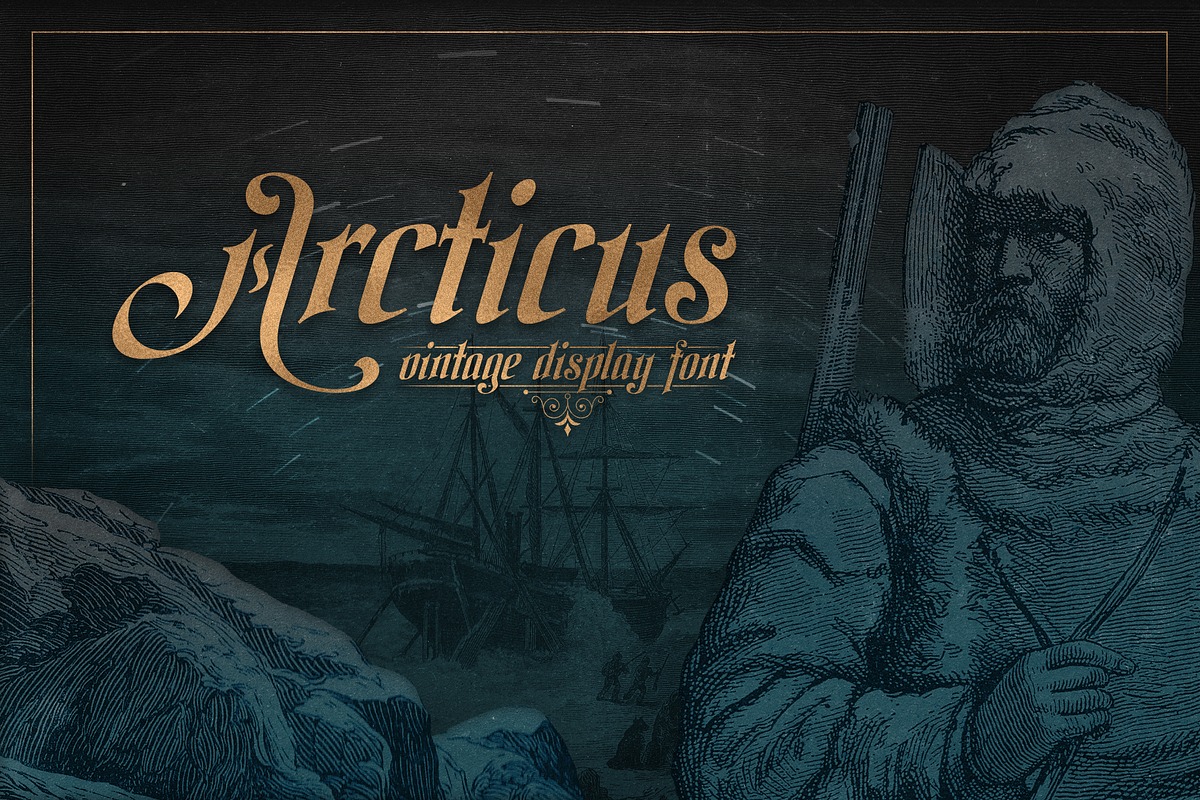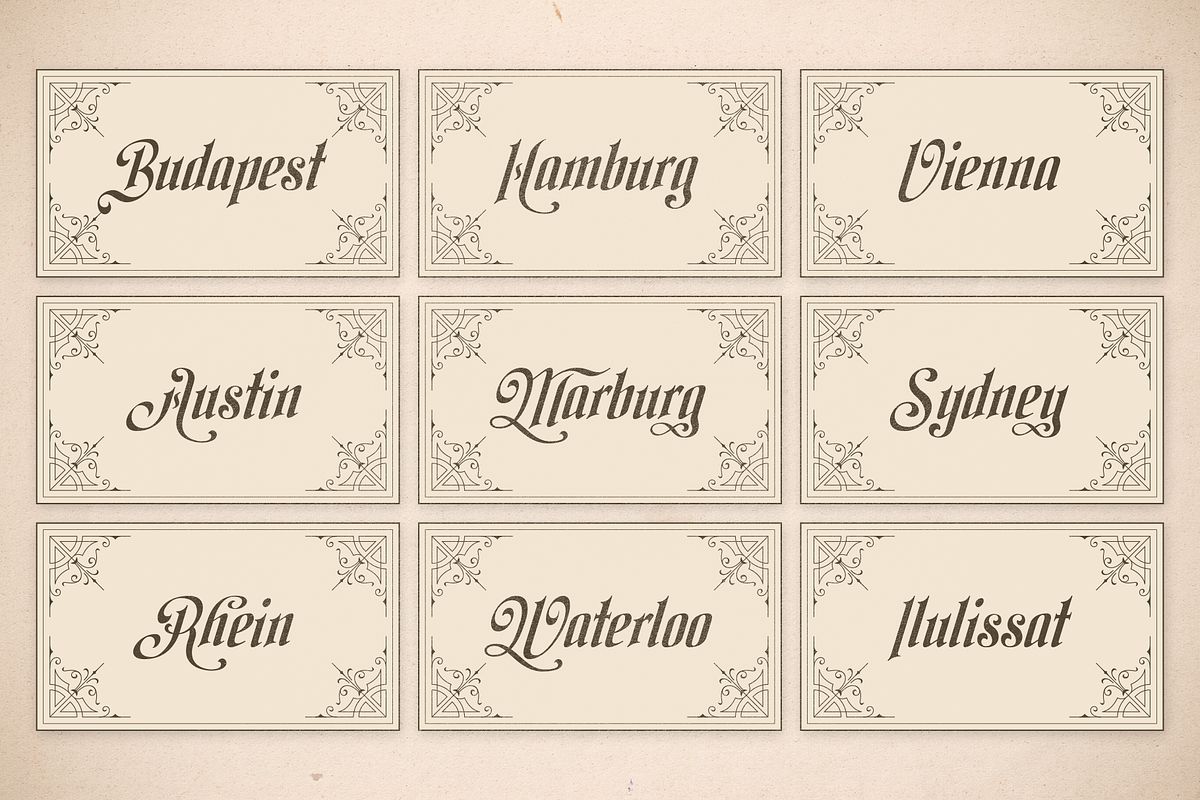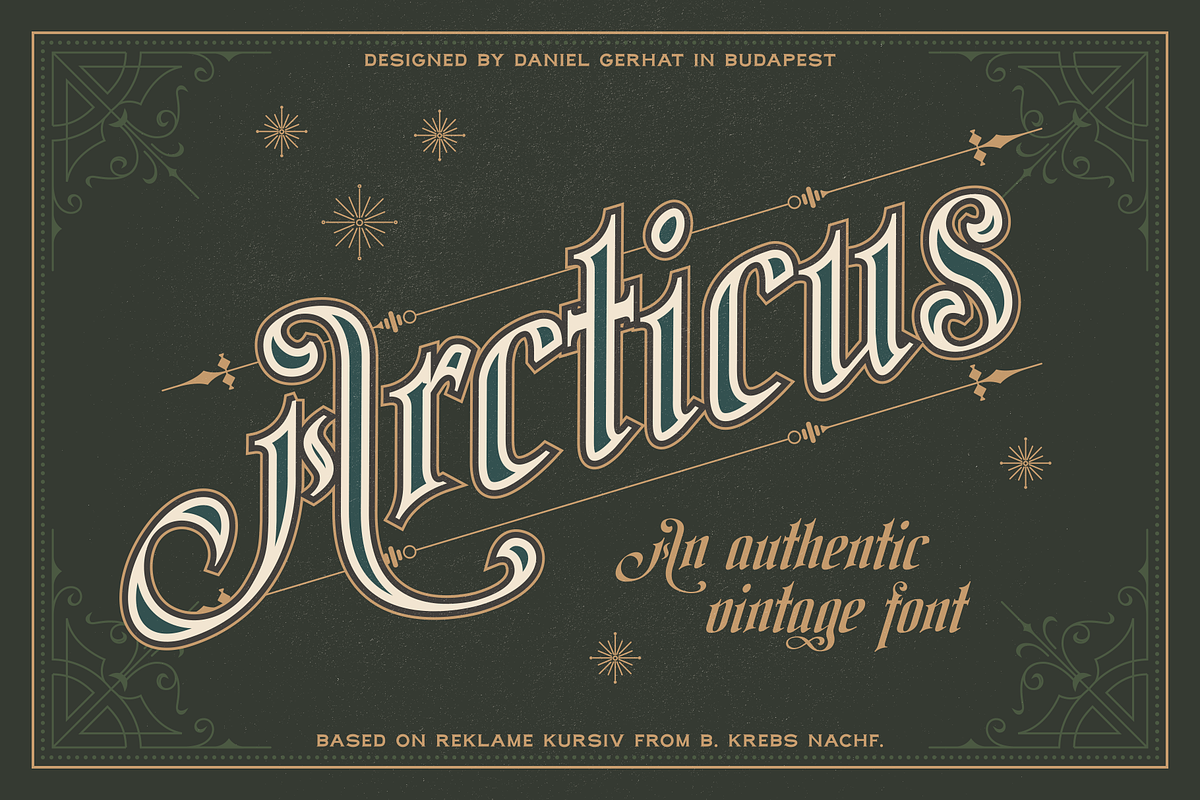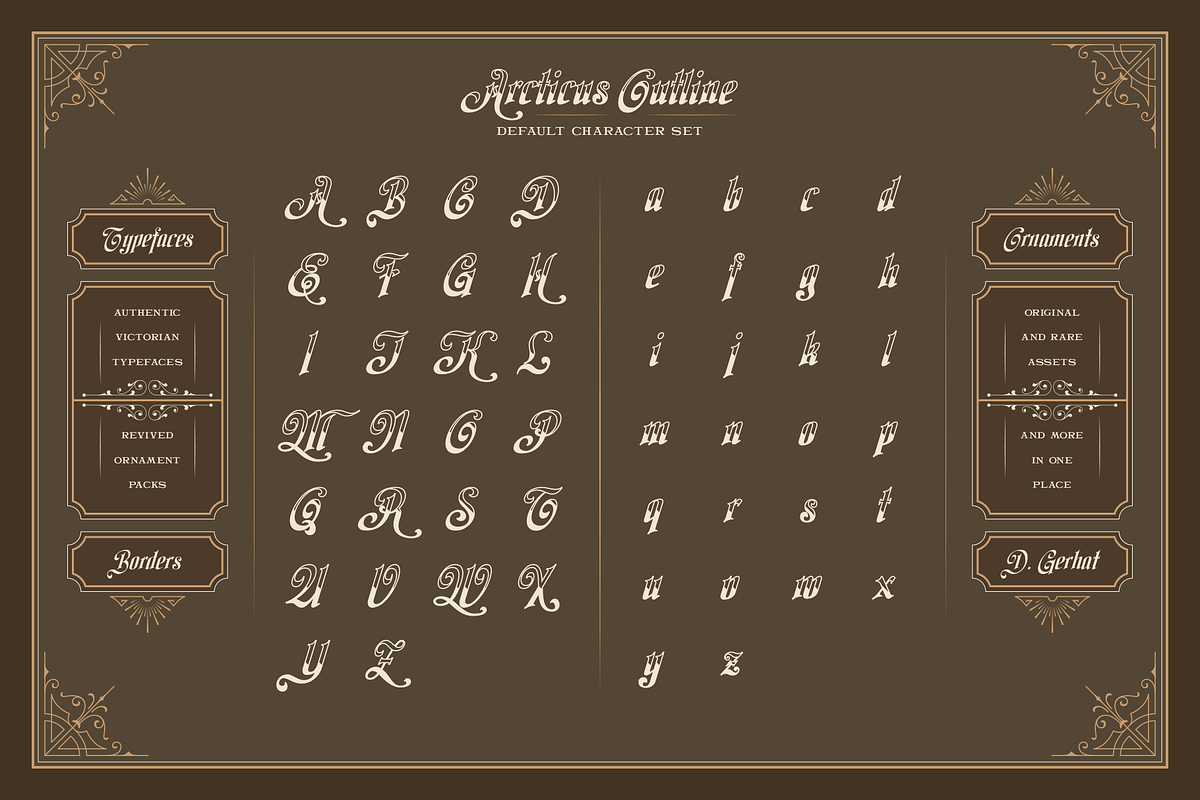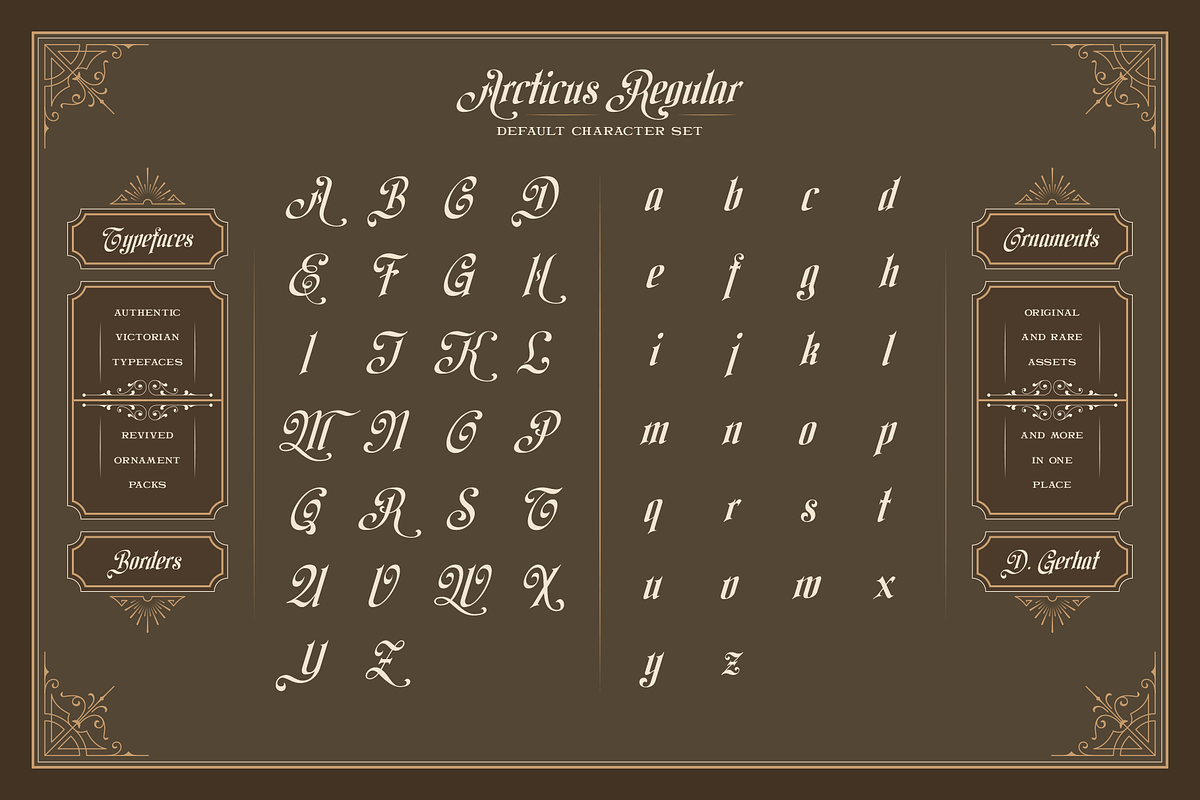
Dedicated to the famed Arctic explorers of the 1800s and before, Arcticus is an authentic Victorian display font guaranteed to garner your design the attention it deserves!
Arcticus is based on a typeface designed and produced by the Benjamin Krebs Nachfolger Type Foundry of Frankfurt am Main, Germany sometime around 1890. The original typeface was named "Reklame Kursiv" and was designed for advertising purposes.
Characterized by ornate drop caps, elaborate ascenders and descenders, and an interesting mix between a serif and a script typeface, the original letterforms have been cleaned up and the verticals straightened a bit for a more uniform look.
The font comes in two variations: Standard and Outlined based on the original lead type forms of Reklame Kursiv.
A QUICK TIP FROM VICTORIAN TYPESETTERS
Write your catchword with Arcticus in your favorite program. Enclose the text with two horizontal lines - one above and one below. Select all and rotate them 17 degrees counterclockwise to make your text climb! Arcticus' verticals will be exactly 90 degrees this way without any skew or digital distortion - just how our forefathers did it in the late 1800s!